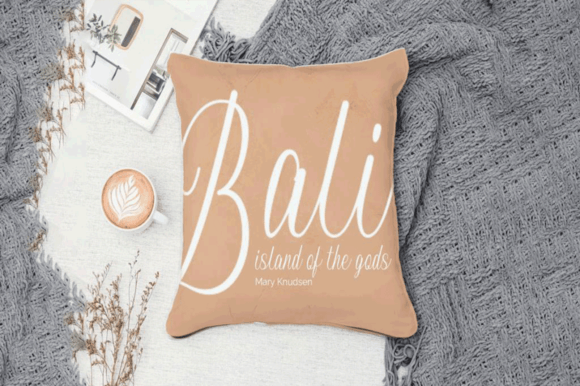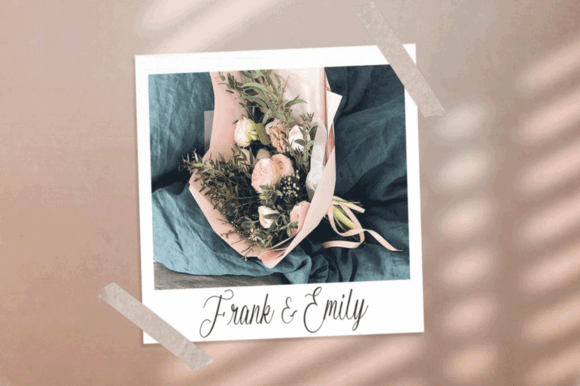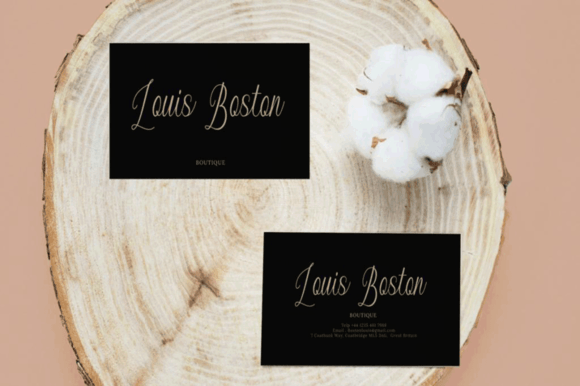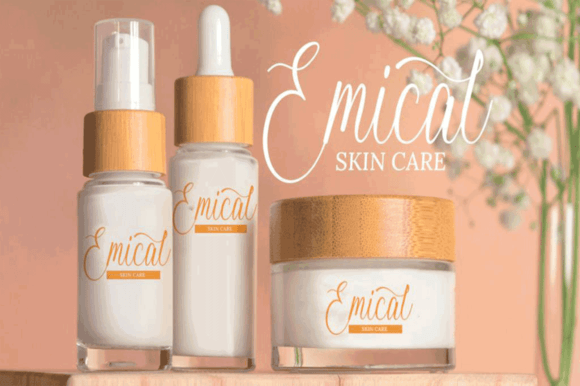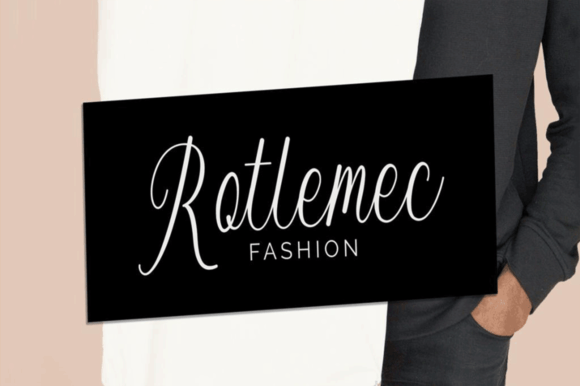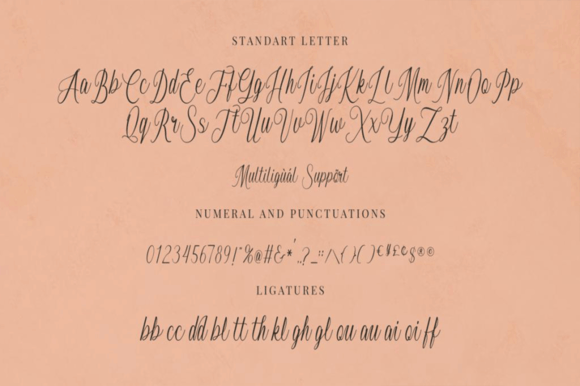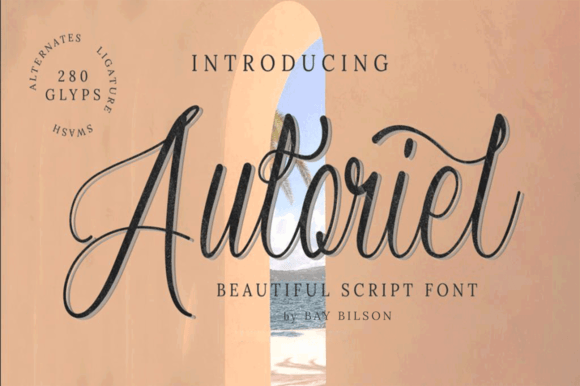
Auloriel Font: Embodying Bold Femininity through Beautiful Calligraphy
In the realm of typography, fonts play a pivotal role in conveying messages, expressing emotions, and creating brand identities. Among the myriad of fonts available, the Auloriel Font stands out for its unique blend of toughness and feminine attitude, making it an excellent choice for designers and crafters looking to infuse their projects with a bold yet elegant touch.
The Essence of Auloriel Font
Auloriel Font is a script font that exudes beautiful calligraphy, characterized by its bold and confident strokes. This font is not just a typographical element; it’s an expression of personality and style. Its design is centered around embodying a sense of femininity that is not delicate or fragile but strong and resilient. The boldness of Auloriel Font makes it perfect for projects that require a statement piece, such as brand logos, clothing designs, and any creative endeavor that demands attention and makes a lasting impression.
One of the key features that make Auloriel Font highly sought after is its versatility. Whether you’re designing a logo for a fashion brand, creating custom apparel, or working on a packaging project, this font can adapt to various design needs. Its unique script style can add a touch of sophistication and elegance, making any project stand out. The font’s ability to convey a sense of toughness and femininity simultaneously makes it a go-to choice for brands and designers aiming to break the conventional mold of feminine typography.
Auloriel Font comes with PUA (Private Use Area) encoding, a significant advantage for designers. PUA encoding allows for easy access to all glyphs and swashes, providing flexibility in design. This feature means that users can effortlessly navigate through the font’s extensive library of characters and decorative elements, making the design process smoother and more efficient. With PUA encoding, designers can quickly find the perfect glyph or swash to complement their work, ensuring that the final product is both aesthetically pleasing and cohesive.
Applications of Auloriel Font
The applications of Auloriel Font are vast and varied. Here are a few areas where this font truly shines:
- Brand Logos: For businesses looking to establish a strong brand identity, Auloriel Font offers a unique opportunity to stand out. Its bold yet elegant appearance can make a brand logo memorable and impactful.
- Clothing Designs: Fashion designers can leverage the font’s stylish and contemporary look to create stunning apparel designs. Whether it’s a casual wear brand or a high-fashion label, Auloriel Font can add a touch of sophistication.
- Stationery and Packaging: For those creating custom stationery, cards, or packaging, this font provides an excellent way to add a personal and stylish touch.
Tips for Using Auloriel Font
To make the most out of Auloriel Font, consider the following tips:
- Mix and Match: Don’t be afraid to experiment with different glyphs and swashes. Mixing and matching these elements can create a unique look that complements your design.
- Pair with Simplicity: While Auloriel Font is bold and expressive, pairing it with simpler fonts can create a balanced and visually appealing design.
- Consider Context: Always consider the context in which your design will be used. Ensure that the font size, color, and style align with the overall message and aesthetic you’re aiming to convey.
Auloriel Font is more than just a typographical element; it’s a statement of style and attitude. Its unique blend of boldness and femininity, coupled with its versatility and ease of use, makes it an invaluable tool for designers and crafters. Whether you’re creating a brand logo, designing clothing, or working on any project that requires a touch of elegance and strength, Auloriel Font is an excellent choice. Embody bold femininity in your designs with Auloriel Font and make a lasting impression on your audience.